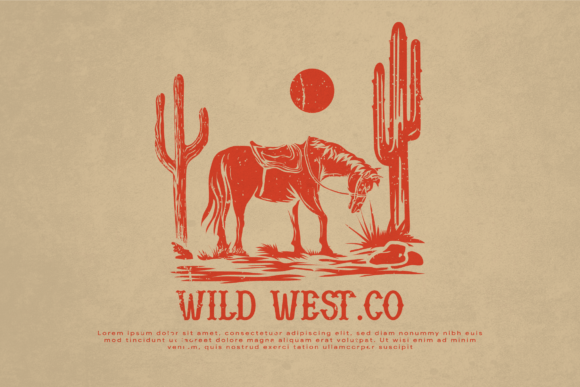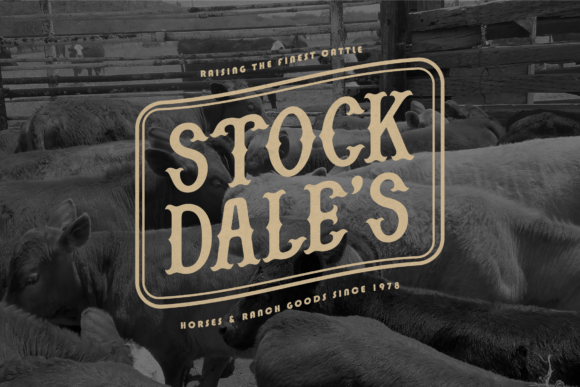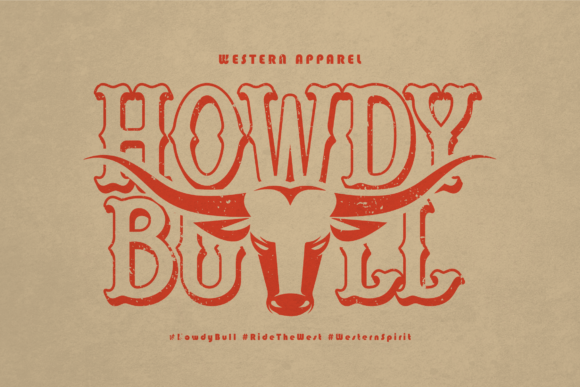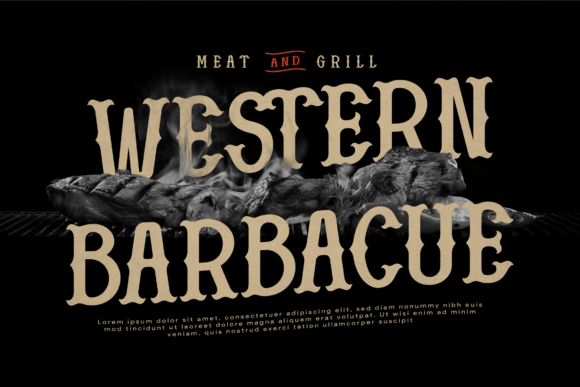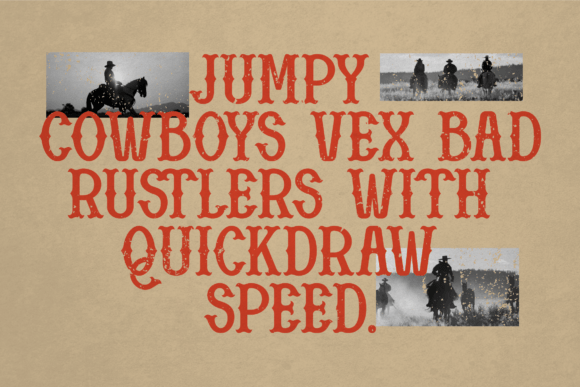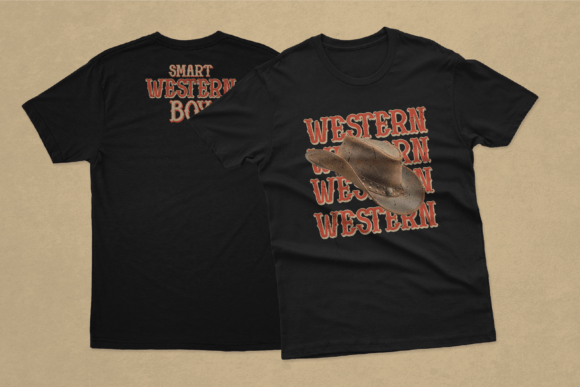
Introduction to Liantero Font
As a designer, have you ever found yourself stuck in a creative rut, searching for the perfect font to elevate your next project? Perhaps you’re working on a branding campaign and need a font that exudes a sense of authenticity and timelessness. If so, you’re in luck because we’re about to introduce you to a game-changing design resource that will revolutionize the way you approach your creative projects.
Meet the Liantero Font, a stunning western-style font that’s perfect for a wide range of applications, from logos and branding projects to homeware designs, product packaging, and more. With its high-quality design and transparent background, this font is a must-have for any designer looking to add a touch of sophistication and elegance to their work.
What sets the Liantero Font apart from other design resources is its versatility and value for designers. Whether you’re working on a small project or a large-scale campaign, this font is sure to impress. And the best part? It’s available for free download, making it an invaluable asset for any creative project.
Key Features of Liantero Font
- High-quality, professional font ideal for creative projects requiring a unique touch.
- Comes with a transparent background, making it perfect for use on various design elements and backgrounds.
- Perfect for designers looking for a distinctive, high-quality font to elevate their creative projects.
Honest Review: Liantero Font
I recently had the chance to work with the Liantero Font, and I must say, it’s been a game-changer for my creative projects. This font is a true design resource that has elevated my work to a whole new level.
One of the standout features of the Liantero Font is its high quality and versatility. It’s perfect for a wide range of creative projects, from logos to typography-heavy designs. The font is also incredibly easy to use, thanks to its intuitive design and transparent background.
- Easy to use, even for designers with limited experience
- Transparent background makes it easy to work with
- Limited character set, may not be suitable for complex projects
- No customization options available, which may be a drawback for some designers
Overall, I’m thoroughly impressed with the Liantero Font. It’s a valuable addition to any designer’s toolkit, and I highly recommend it to anyone looking for a high-quality, versatile font.
Liantero Font is ideal for logos, branding materials, and creative projects that require a high-quality, custom font. It’s also great for adding a professional touch to presentations and documents.